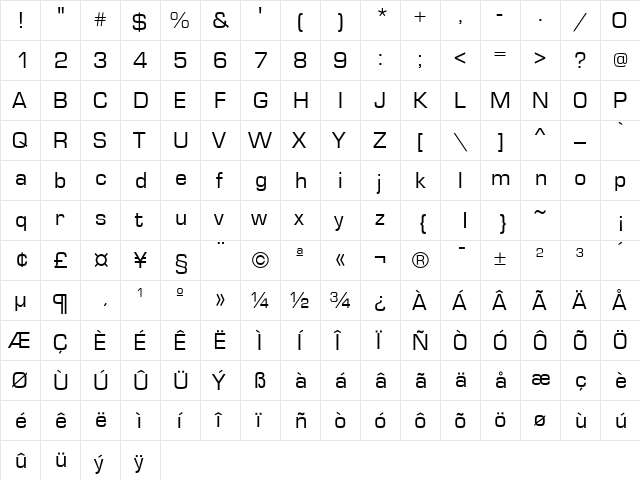
Microstile Normal
Design Context for Microstile Typeface
Microstile offers clean, dependable letterforms without strong stylistic allegiance, making it a practical choice for designers who need flexibility.
Pro Tip: Use Microstile in both headline and body roles to test its range before committing to a single application.